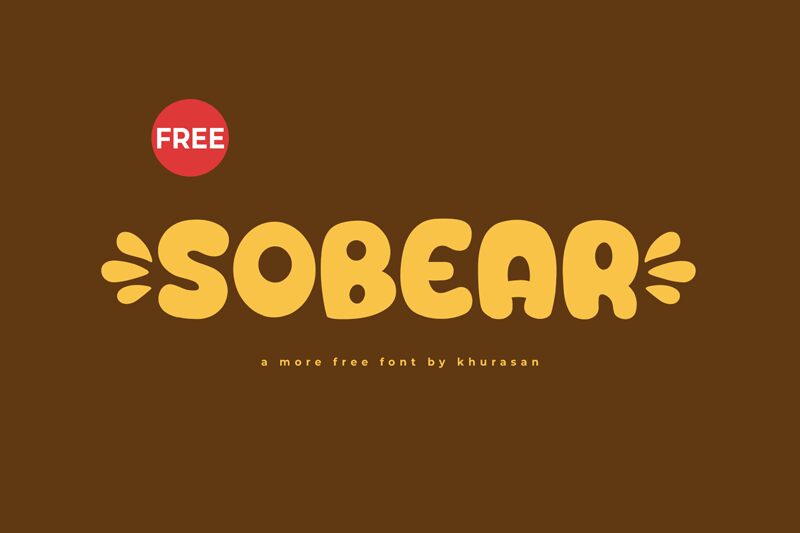
Sobear
Sobear, crafted by the imaginative Khurasan, exudes a playful charm with its cartoon-inspired style that leaps off the page. This display font boasts bold and bubbly letters that seem to dance with a joyful energy, inviting a smile with every curve and swoop. The roundness of each character adds a soft, approachable feel, perfect for designs that aim to delight and engage.
Ideal for projects targeting younger audiences or for brands seeking a touch of whimsy, Sobear is suited for children’s books, animated movie titles, fun packaging designs, or any creative work where lightheartedness is key. Its friendly demeanor ensures it's at home wherever warmth and cheer are the order of the day.